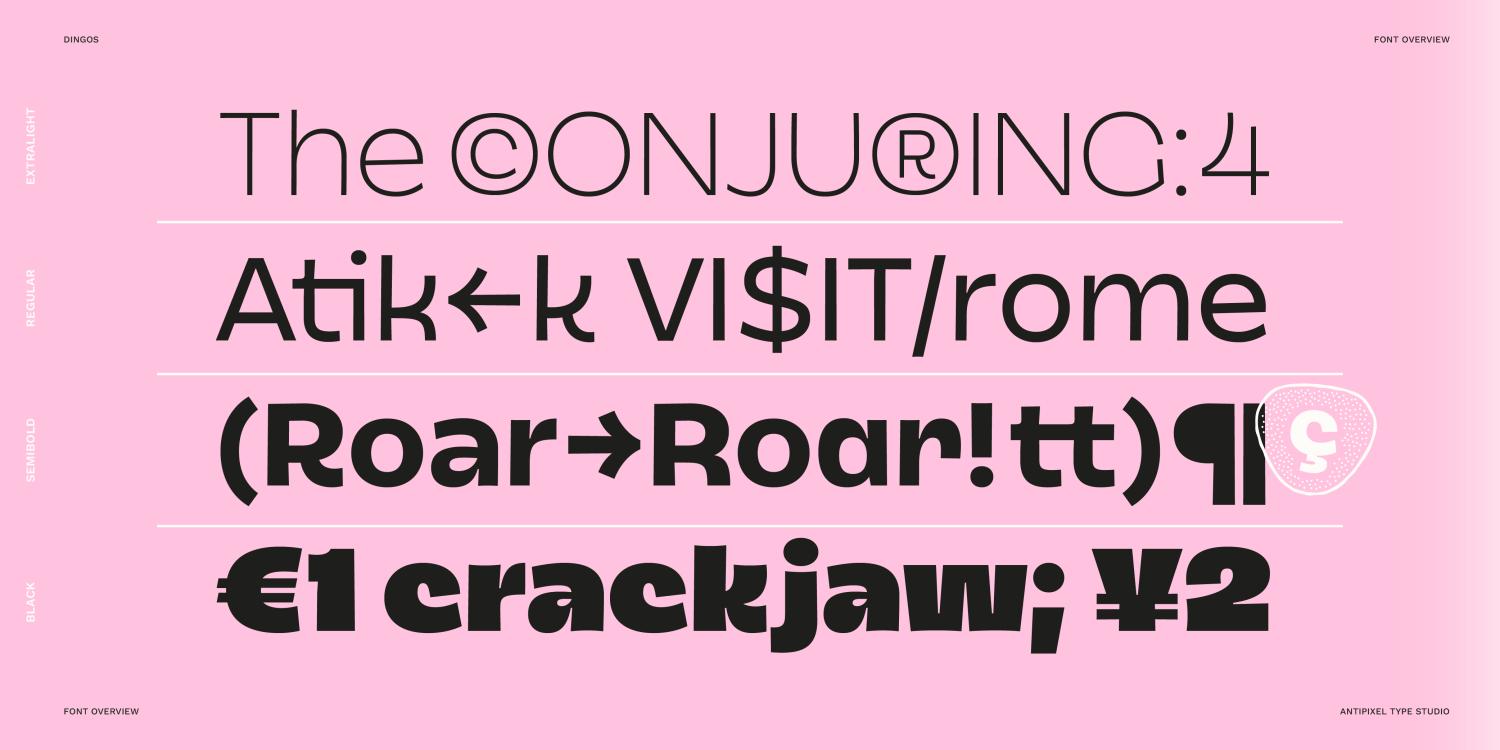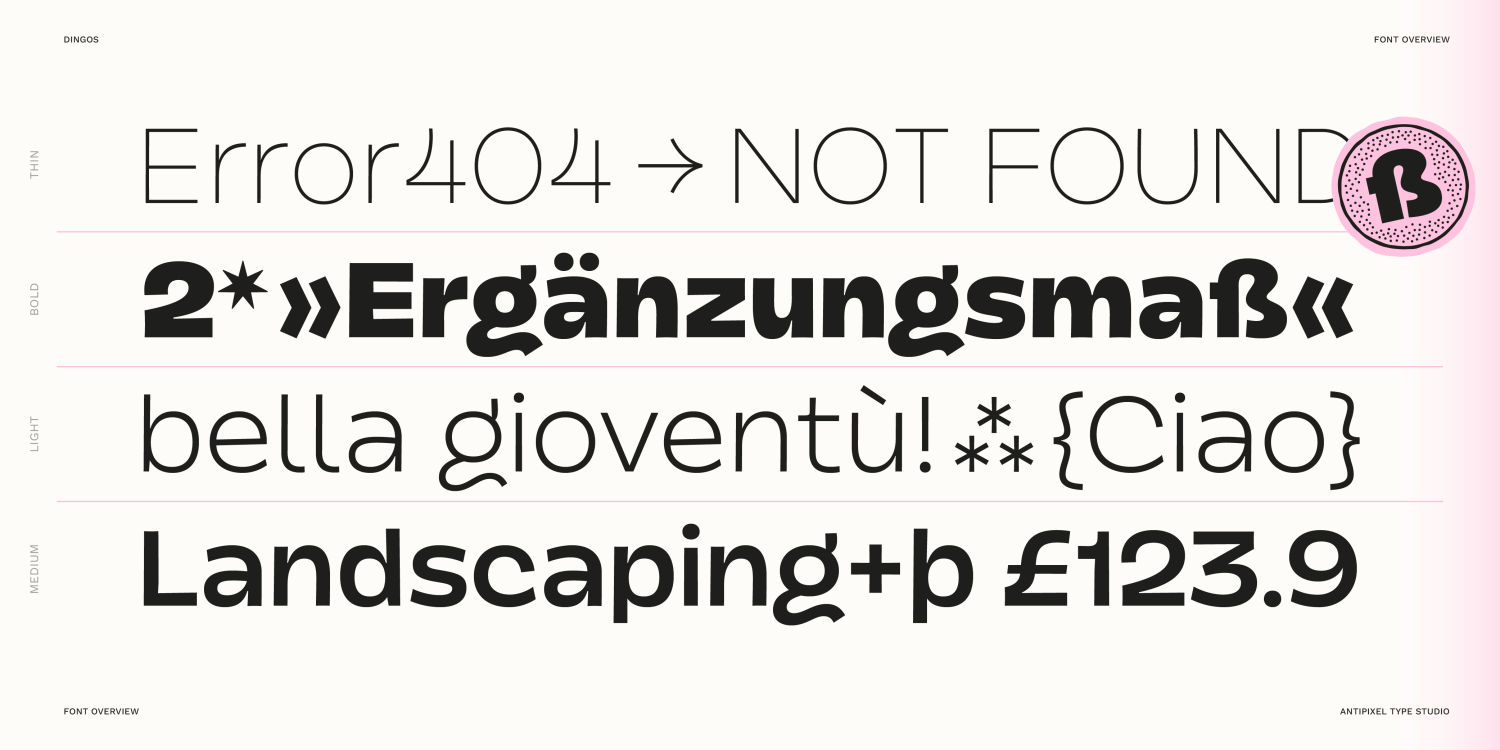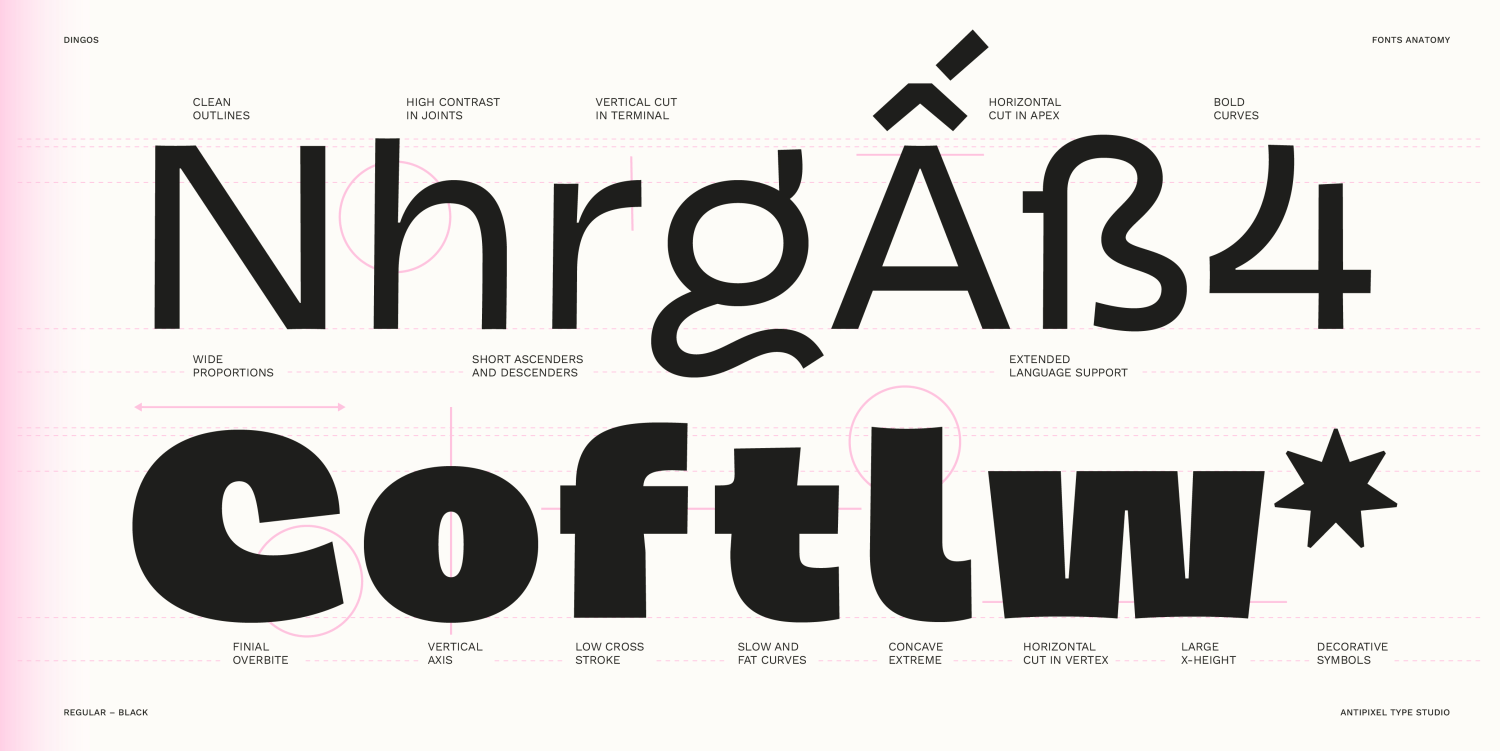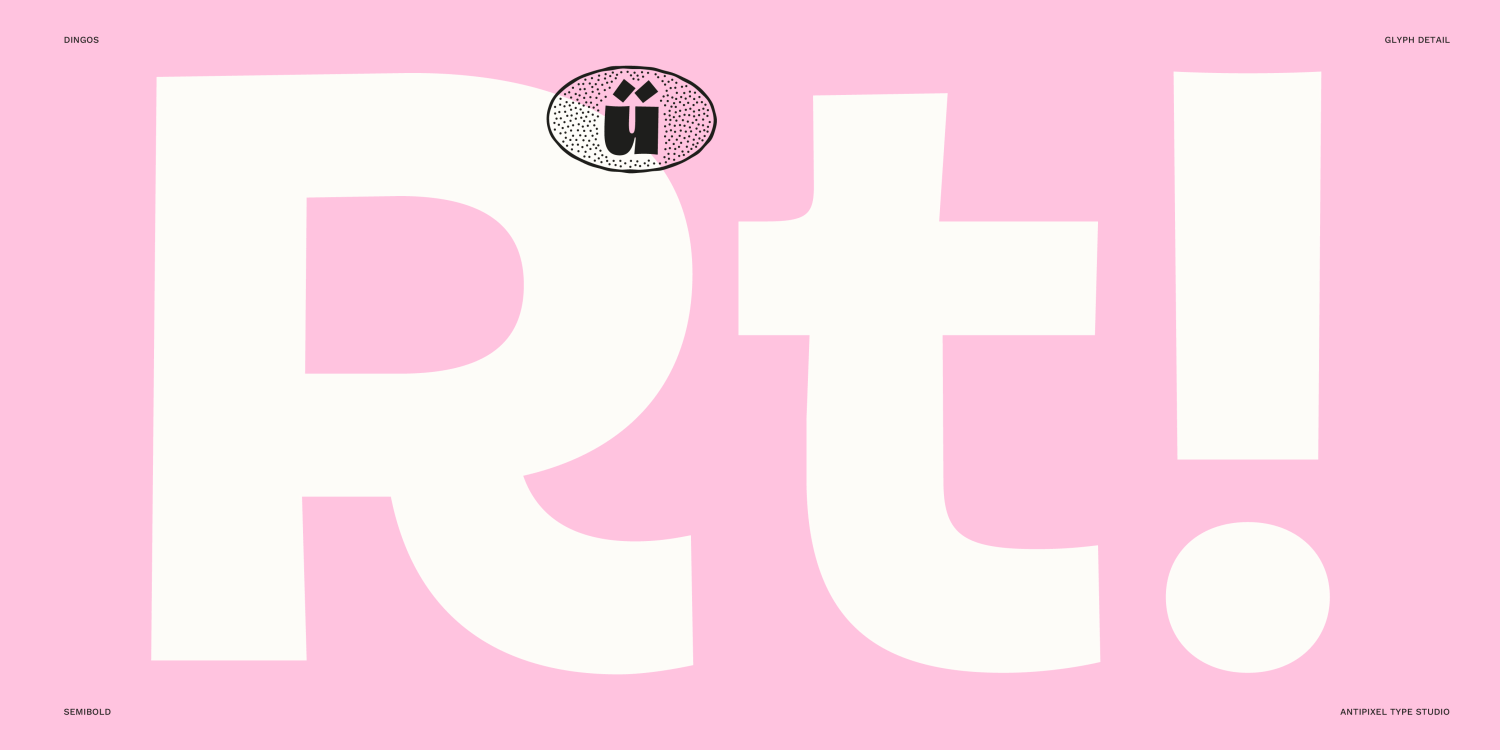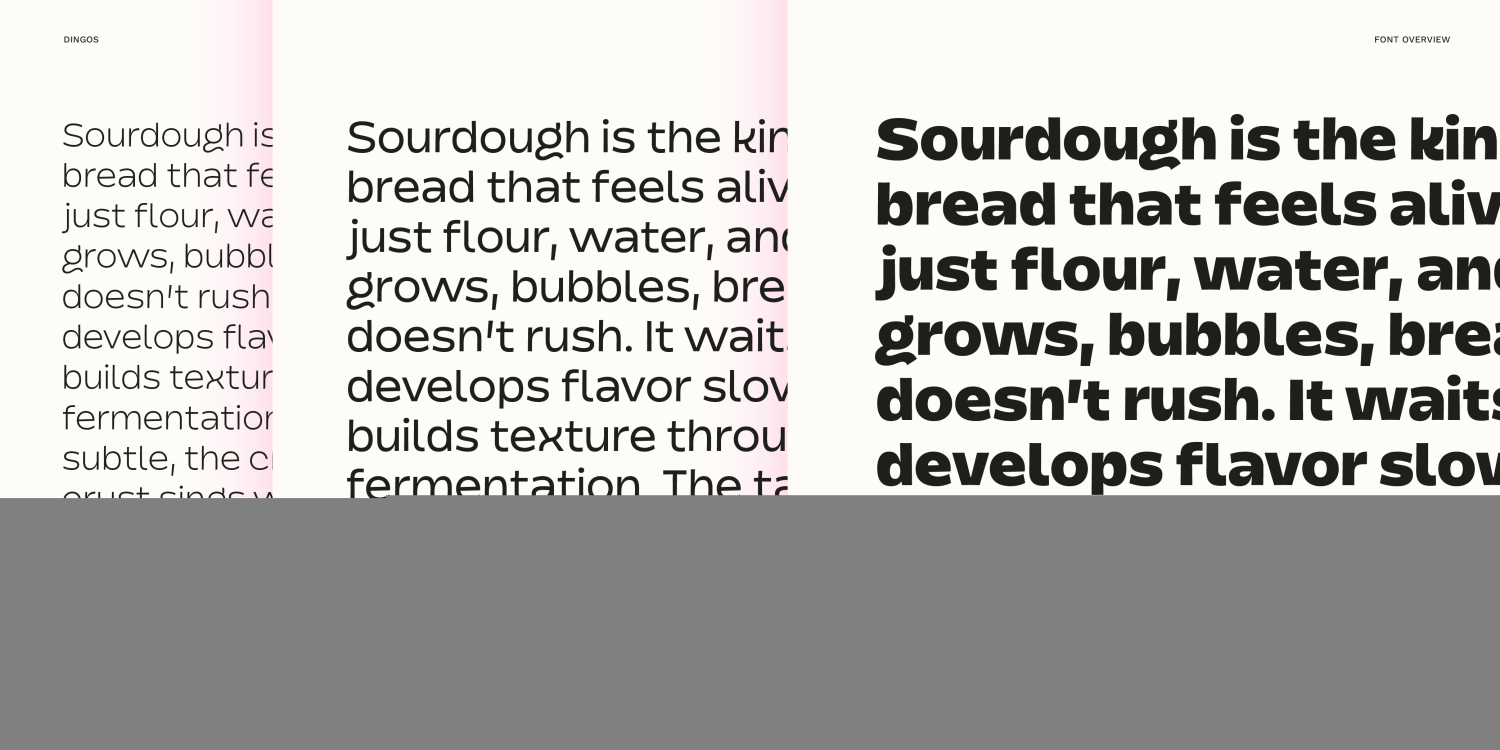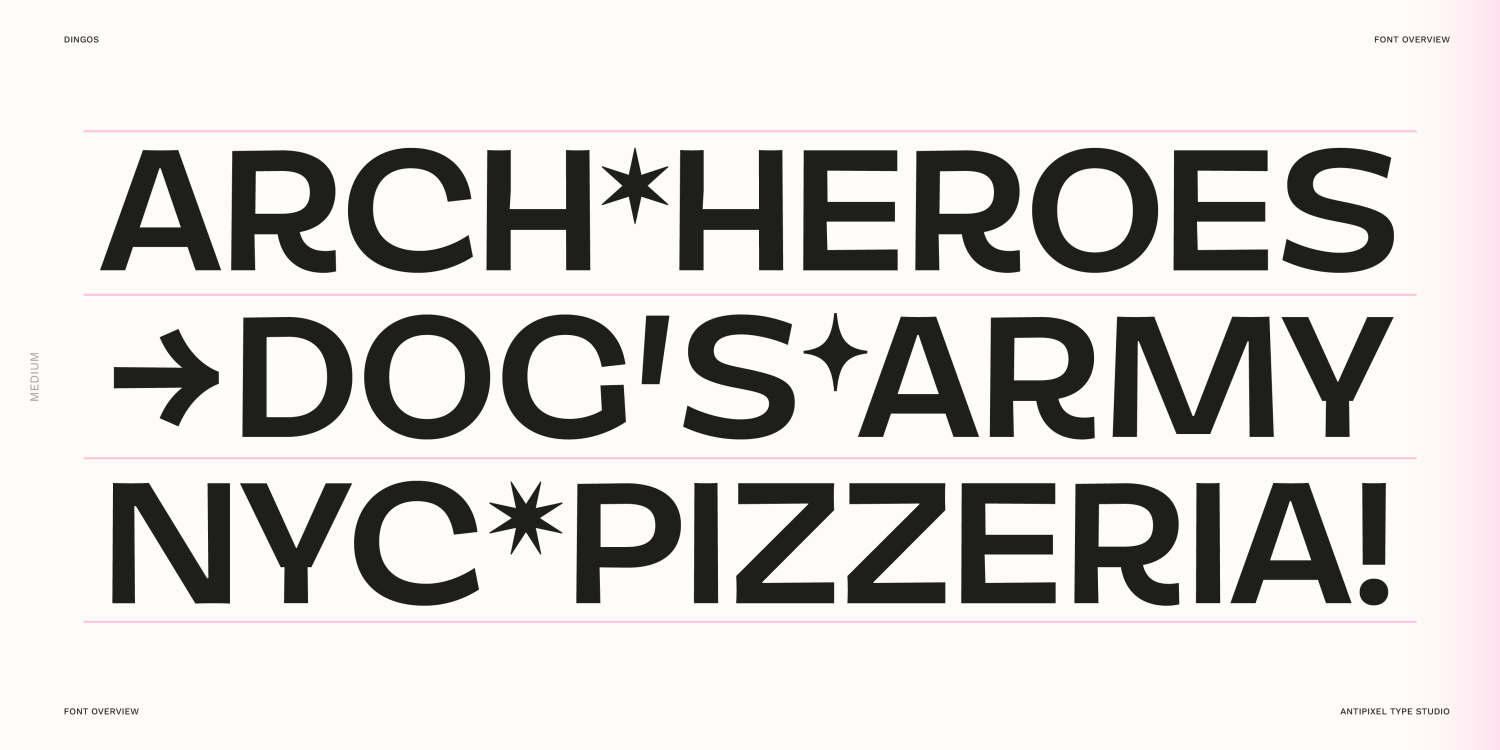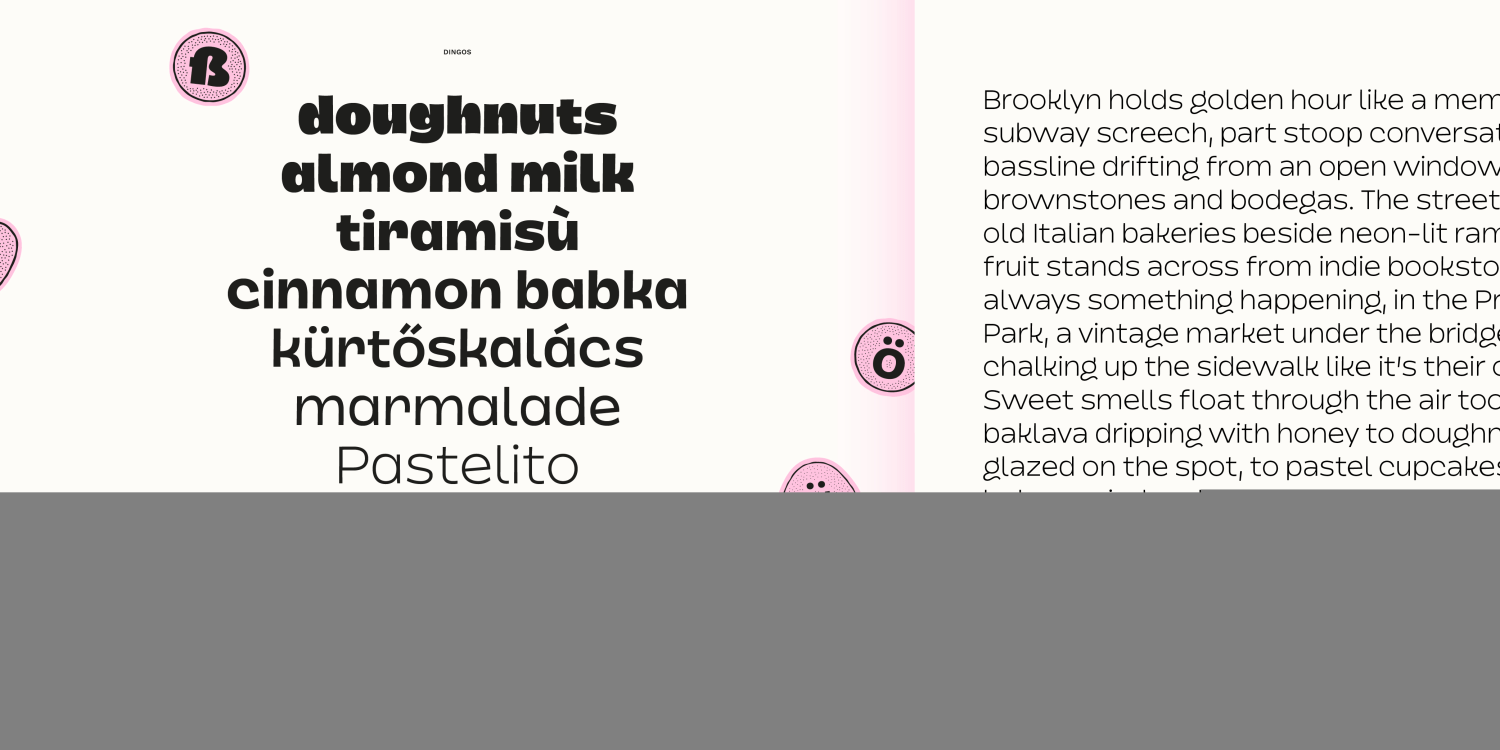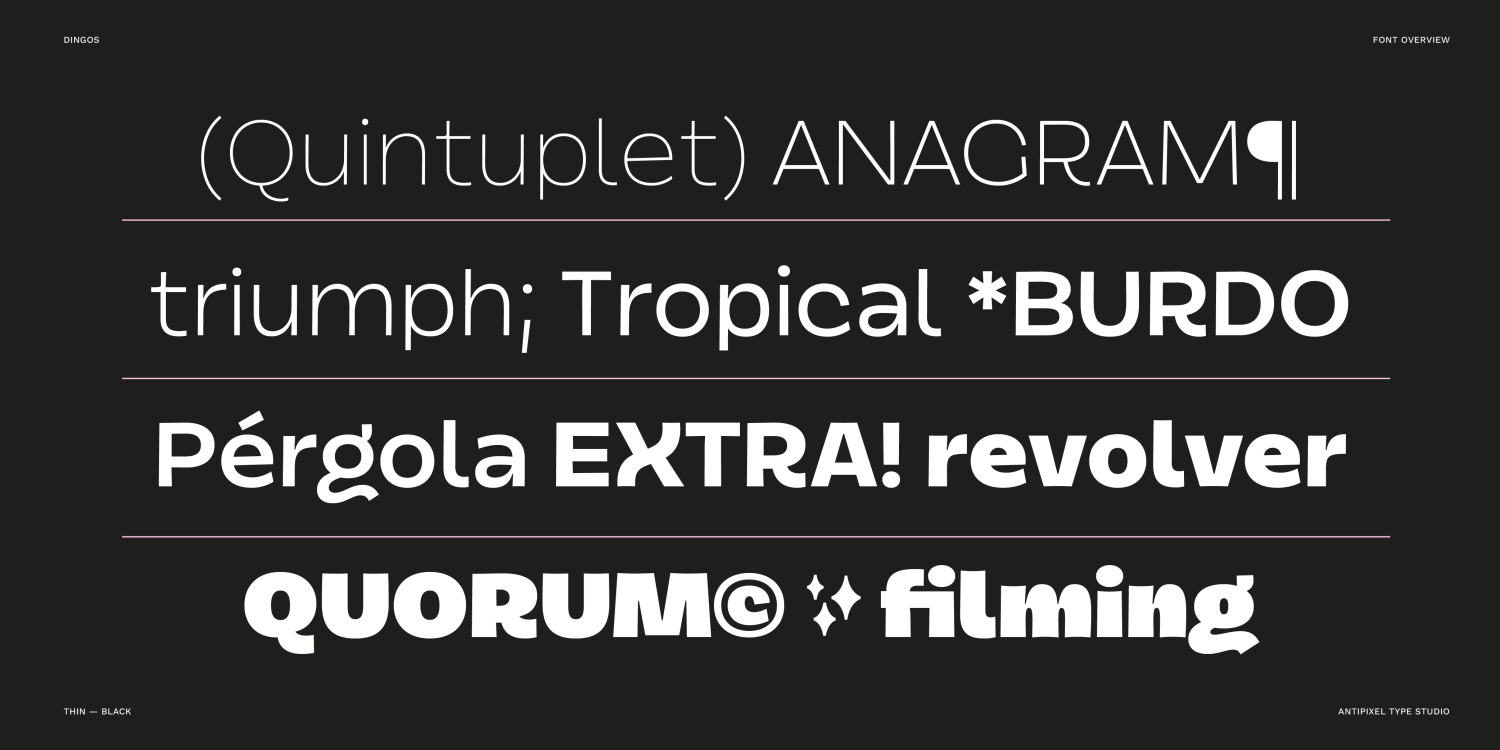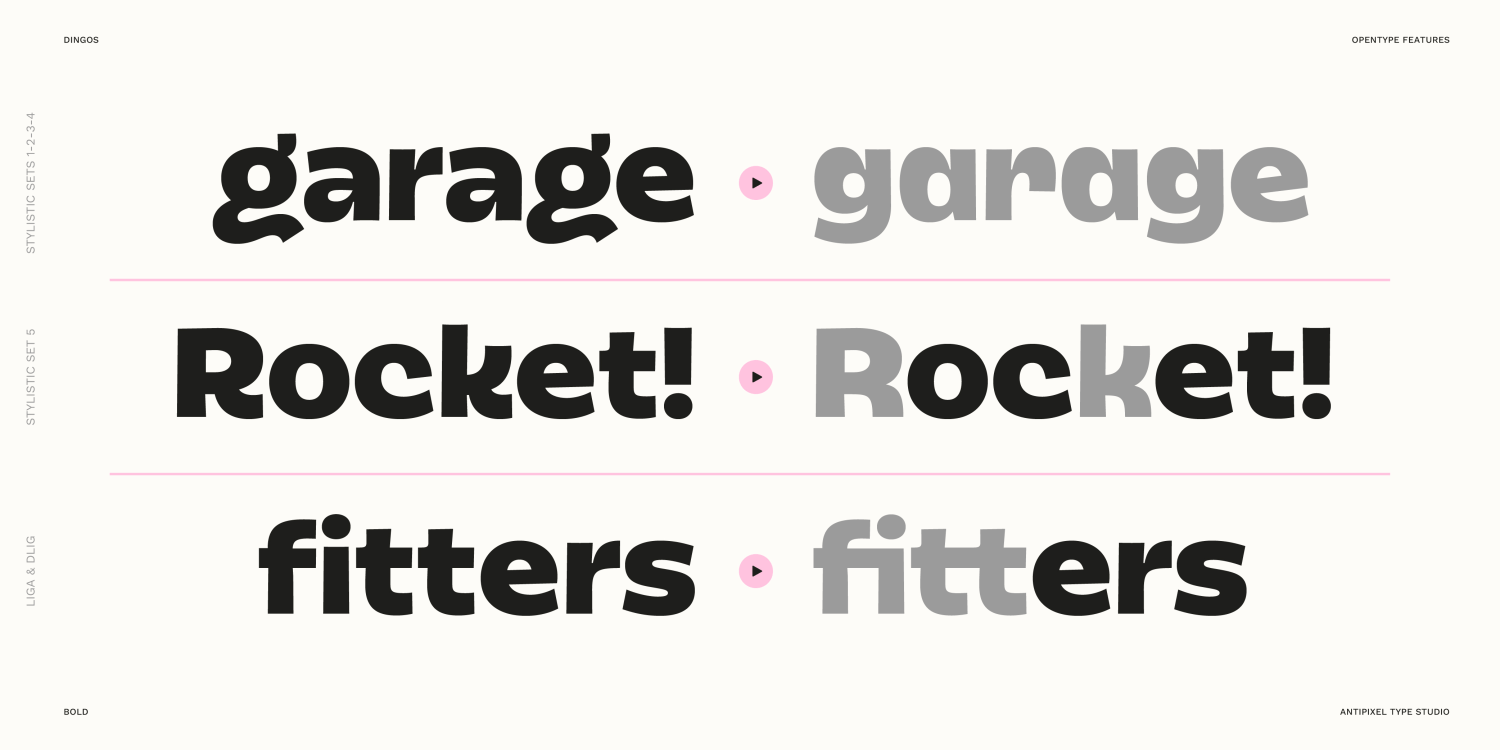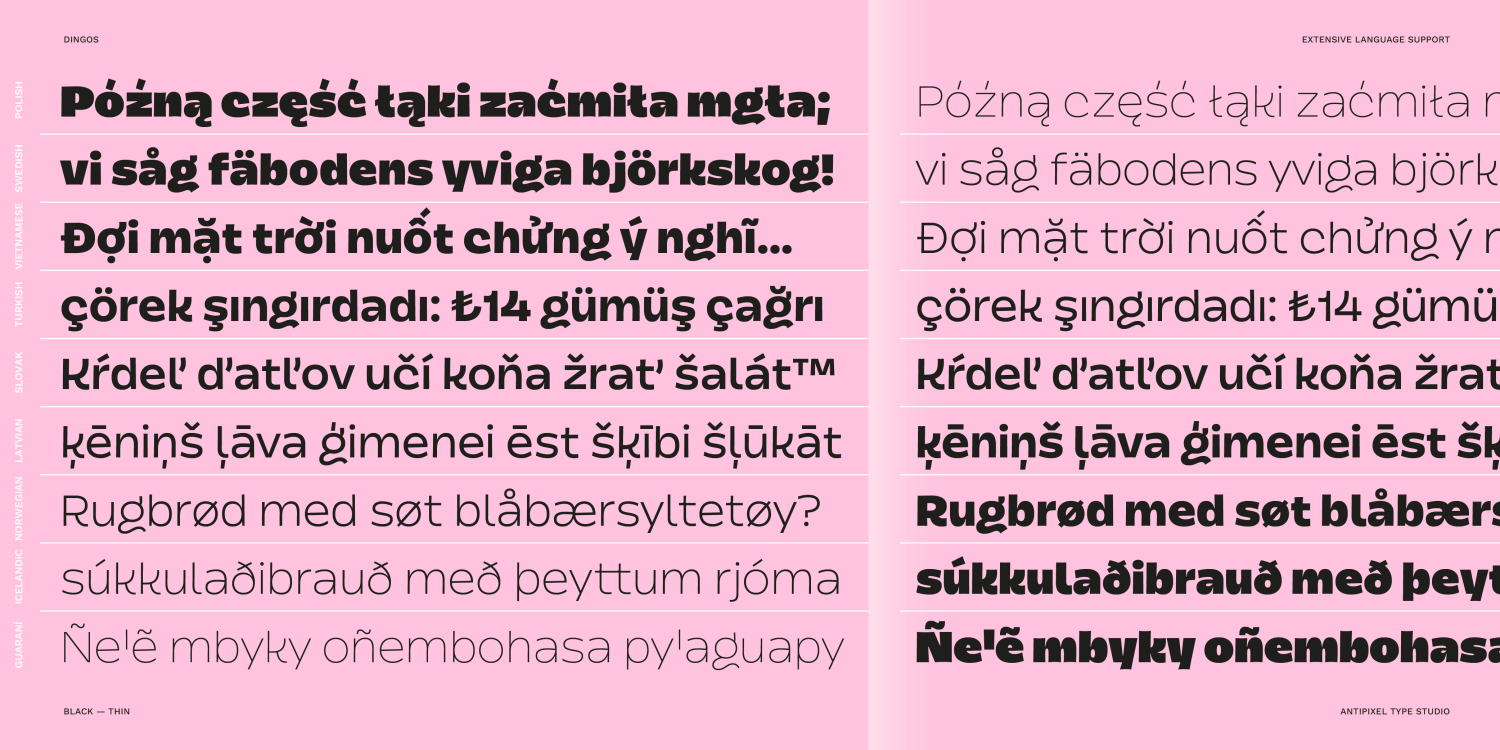
Dingos Black
Font Style by Antipixel Type Studio
Dingos Black, an energetic sans-serif typeface that blends sharp details with soft curves, designed to stand out and perform. It is ideal for headlines, big and medium settings, while remaining legible at smaller sizes. The result is a powerful yet approachable typeface that retains its original attitude while offering improved legibility, clarity, and performance. Perfect for screen and web design, as well as printed posters or book covers.
• Dingos Black (uppercase & lowercase)
• Numbers, punctuation, ligatures, arrows, decorative symbols, case-sensitive characters, monetary and mathematical symbols, and more!
• OpenType: Localized Forms, Contextual Alternates, Stylistic Alternates, Standard Ligatures, Discretionary Ligatures, Stylistic Sets 1 - 9, Subscript, Scientific Inferiors, Superscript, Numerator, Denominator, Fractions.